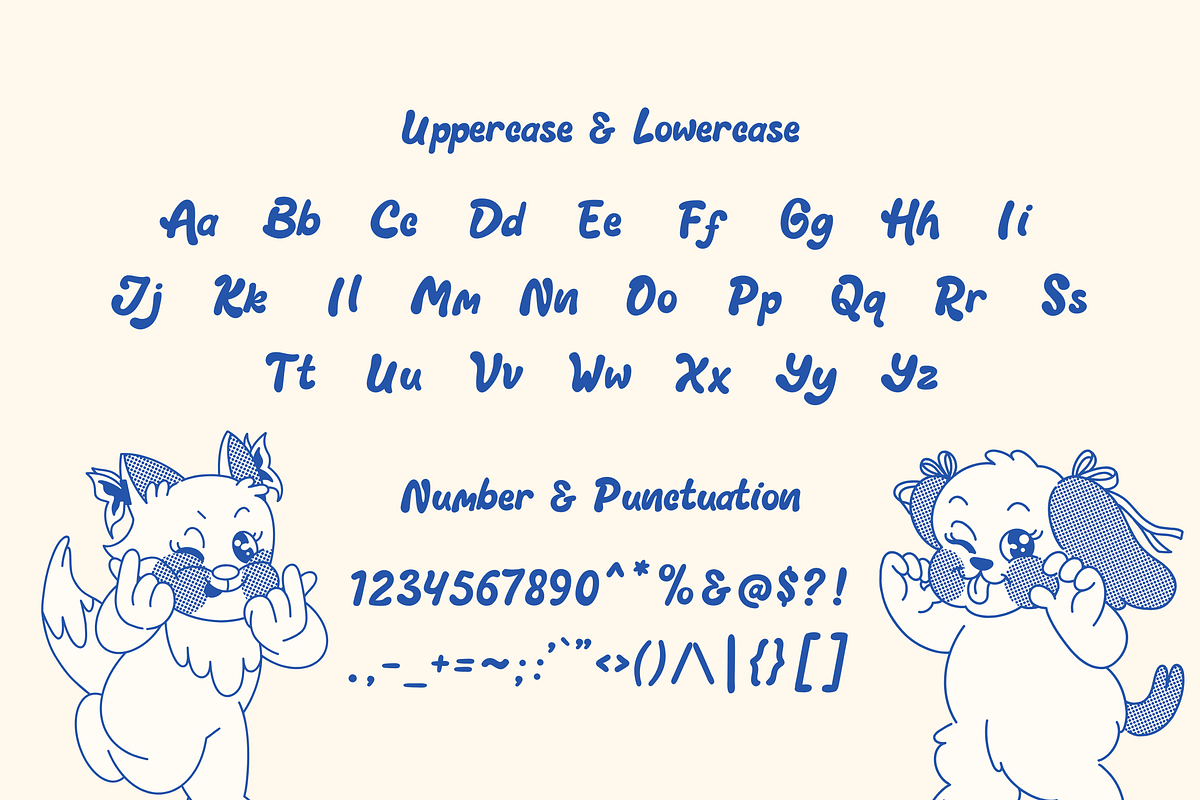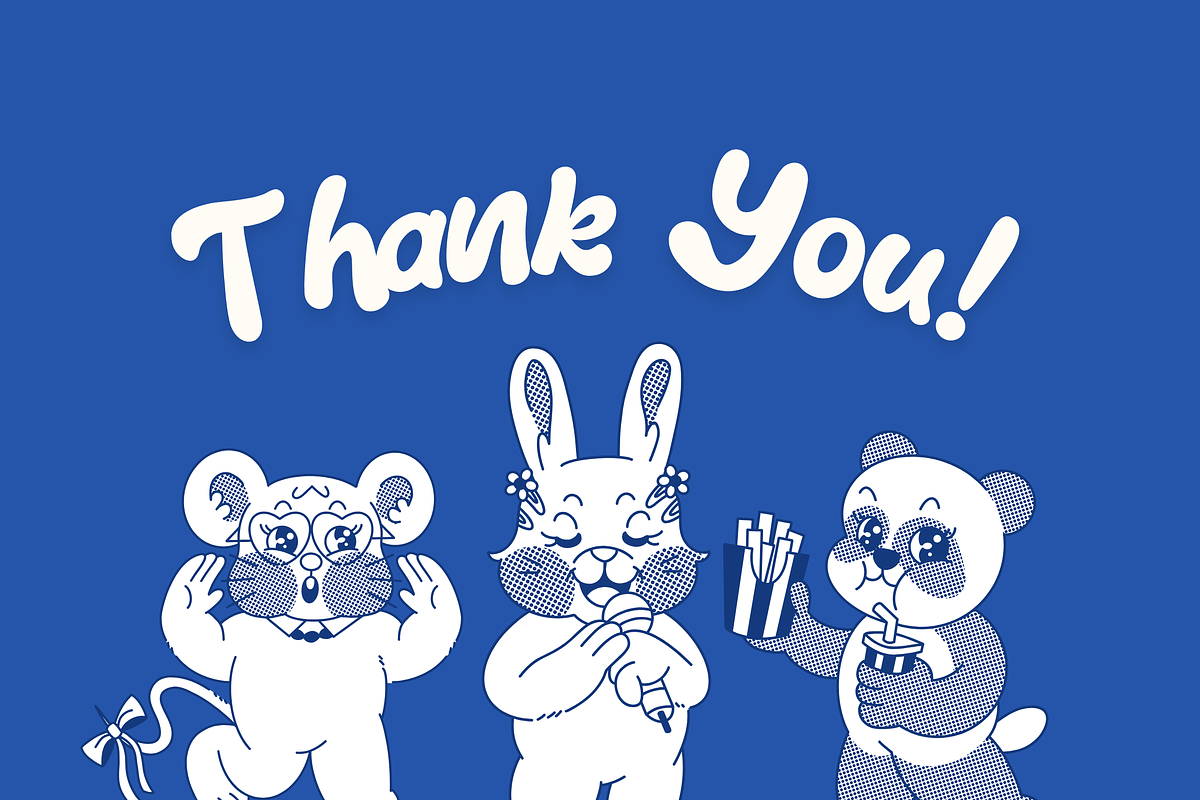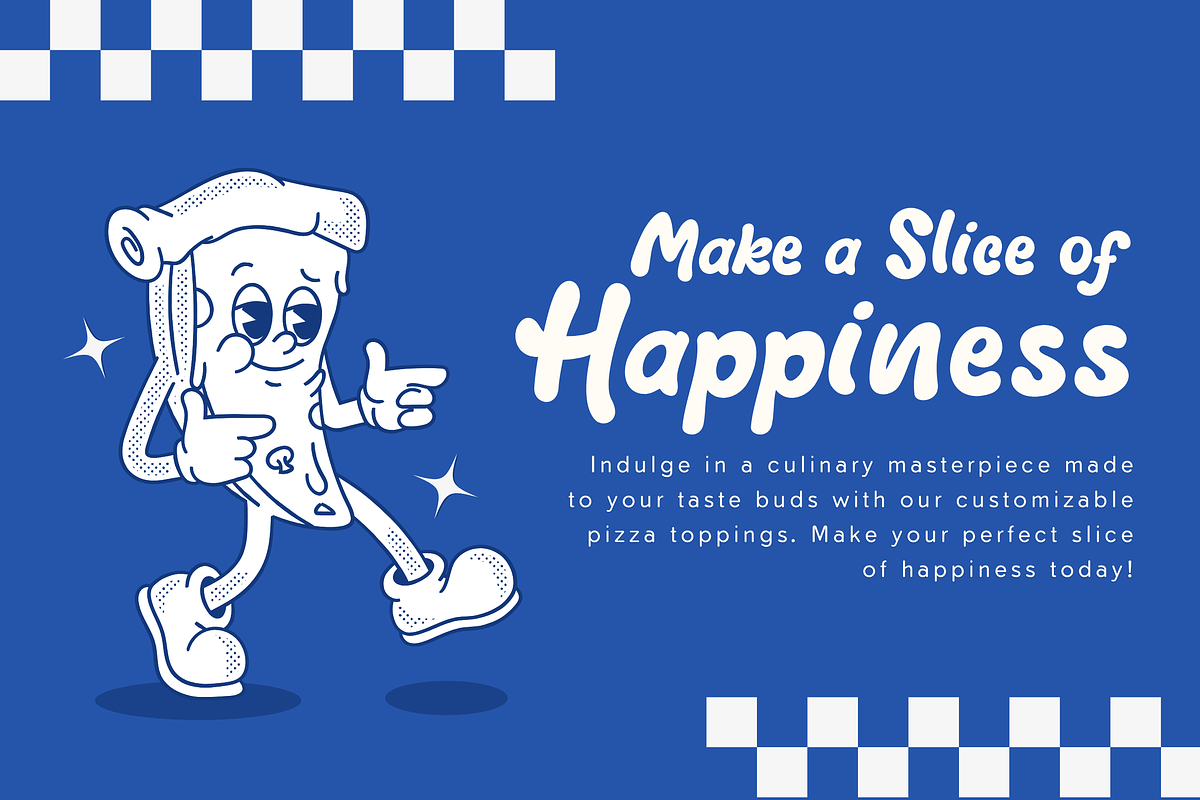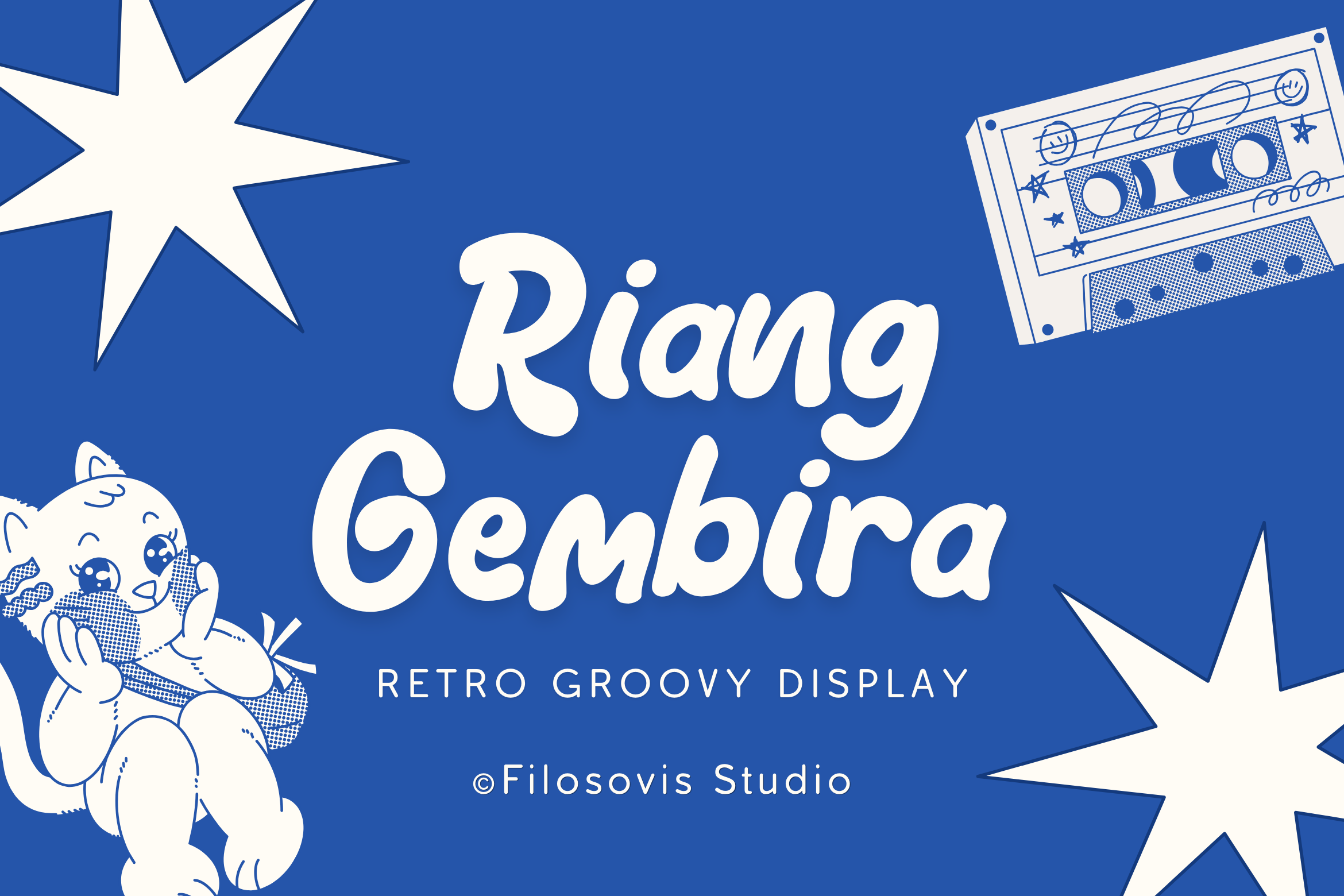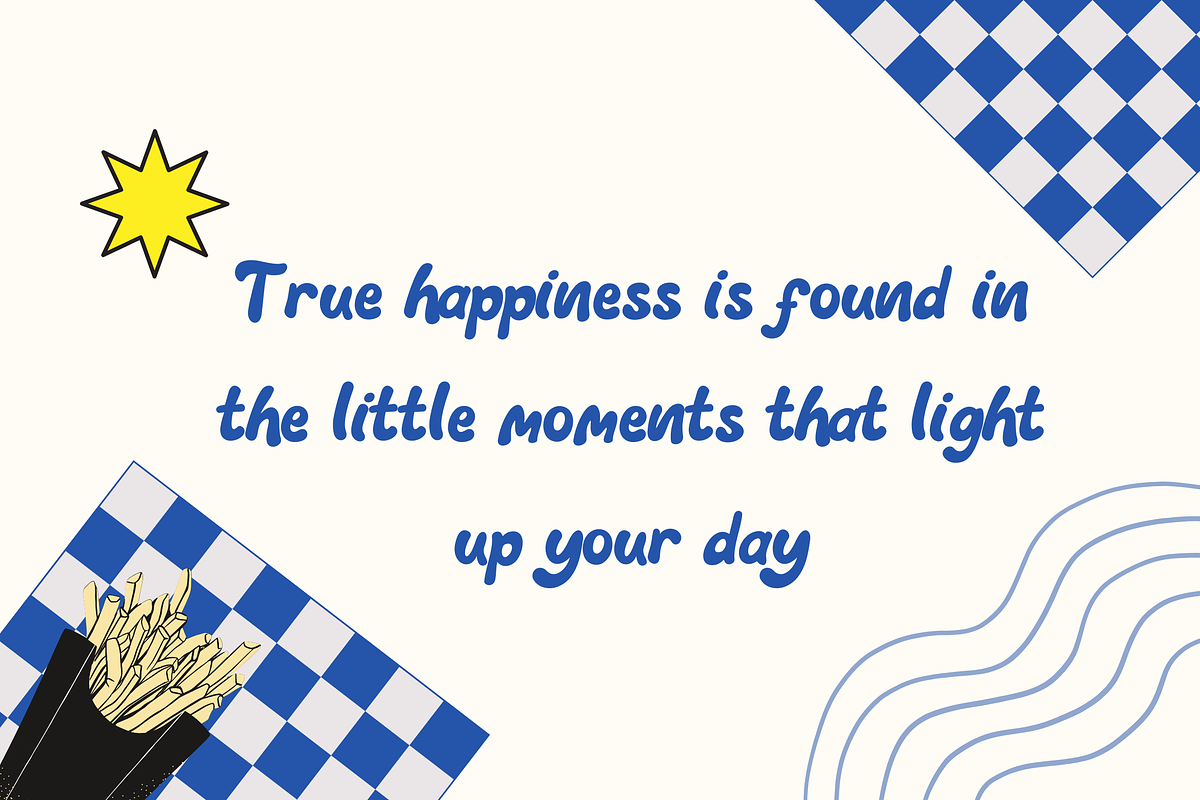
Riang Gembira | Retro Font
The exquisite and gorgeous vintage display font Riang Gembira Font is classy. It will provide a distinct vibe to your next projects with its old look. Take inspiration from its genuine vibe to design stunning greeting cards, eye-catching social media posts, exquisite logo art, and stunning event promos.